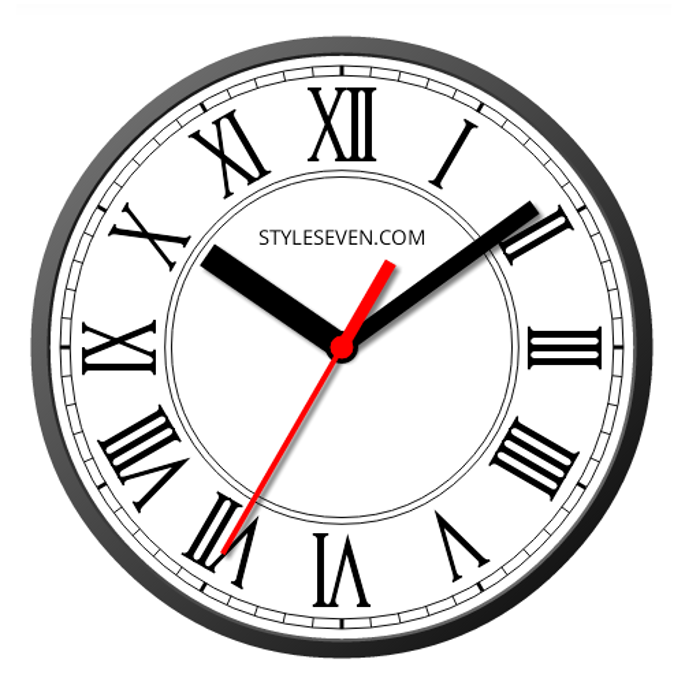
Roman Font 7
The font has roman numbers from 1 to 12.
It was created special for freeware android application "Roman Clock Live Wallpaper-7".
Use symbols "{|}" to type numbers: 10,11,12.